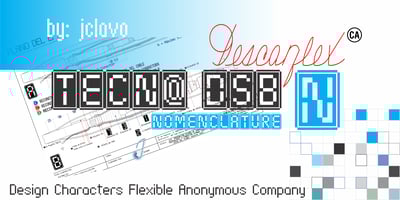
Tecna Dark Square BNF V1.2 Font Family was designed by Jorge Clavo and published by Descarflex. Tecna Dark Square BNF V1.2 contains 1 styles and family package options. The Tecn@ Square family were designed to head, enumerate, point out or highlight a point in a writing or plan.In this sense and for this reason, the characters are available only in capital letters and some signs or symbols that could serve such purposes.Among other applications, these characters are used in the personalization of plans, highlighting or indicating parts of the design that facilitate the Descriptive Memory of the plan or the development of a Manual or Installation Instructions.